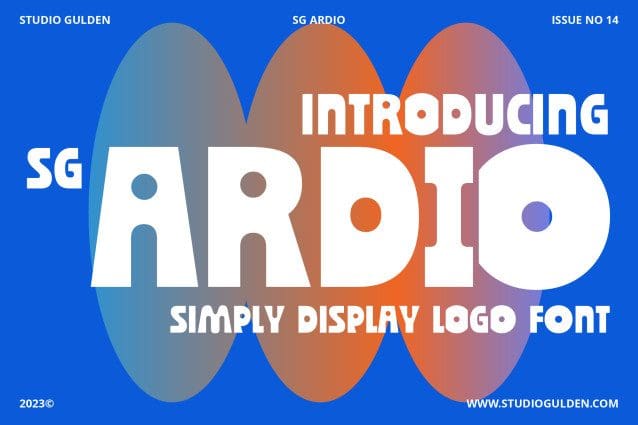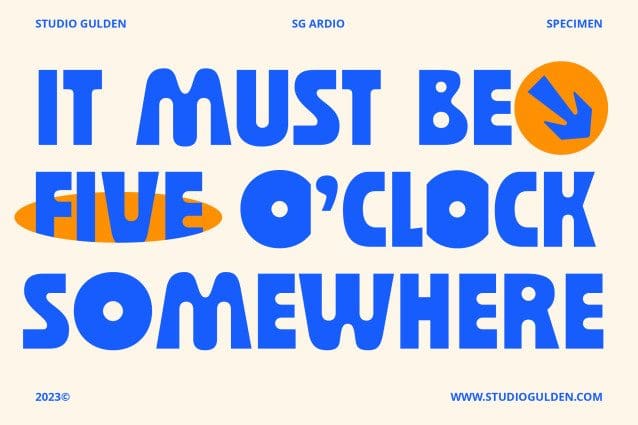
SG Ardio Font
SG ARDIO FONT: Where Simplicity Meets Courage. With four distinct styles – mini, midi, mindi, and maxi – this display logo font is your key to striking designs, captivating posters, and unforgettable headlines. Elevate your visuals with SGARDIO today!
Designer Name: Studio Gulden
Classification: Display Fonts, Playful / Fun Fonts, Sans Serif Fonts